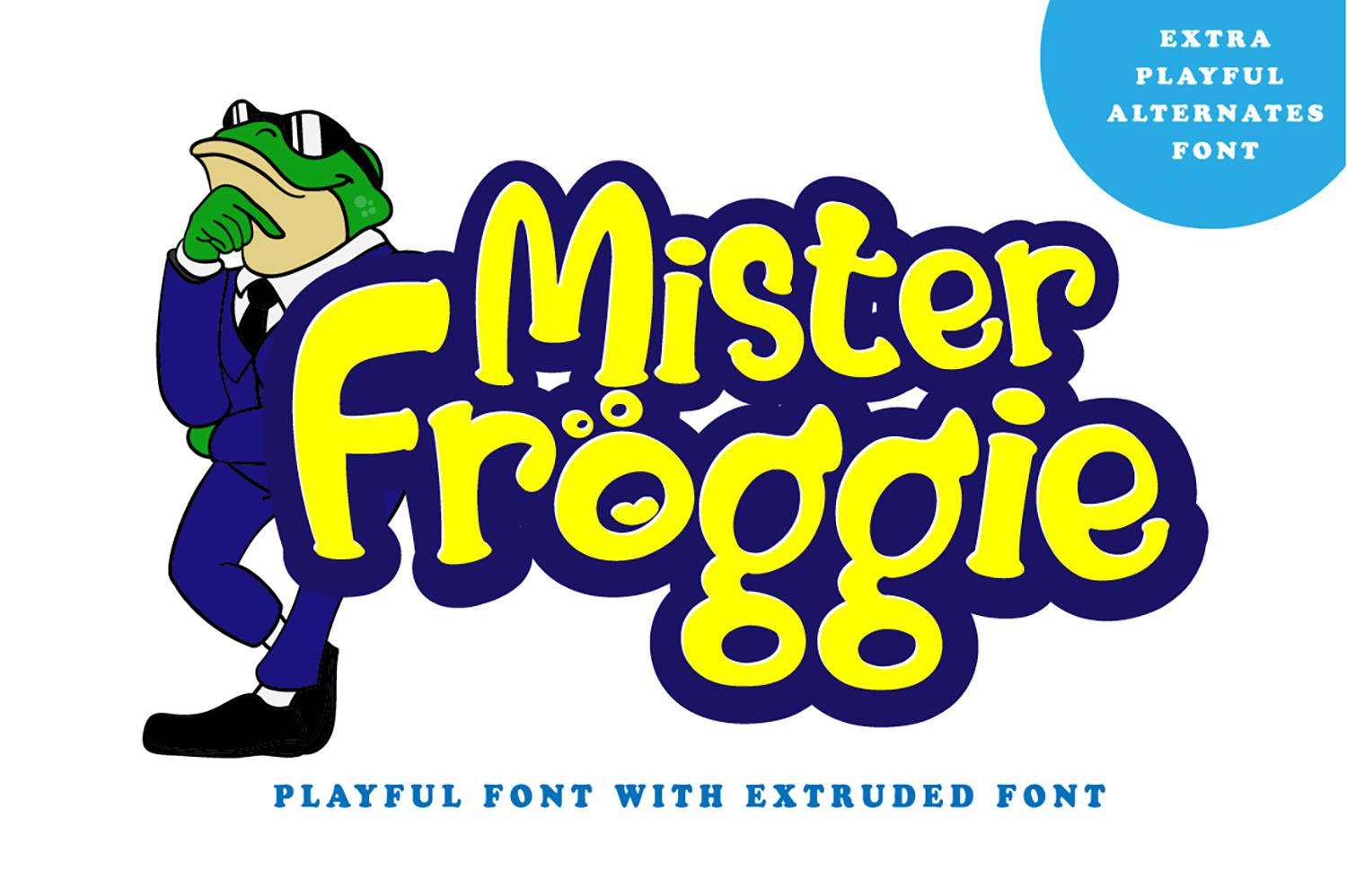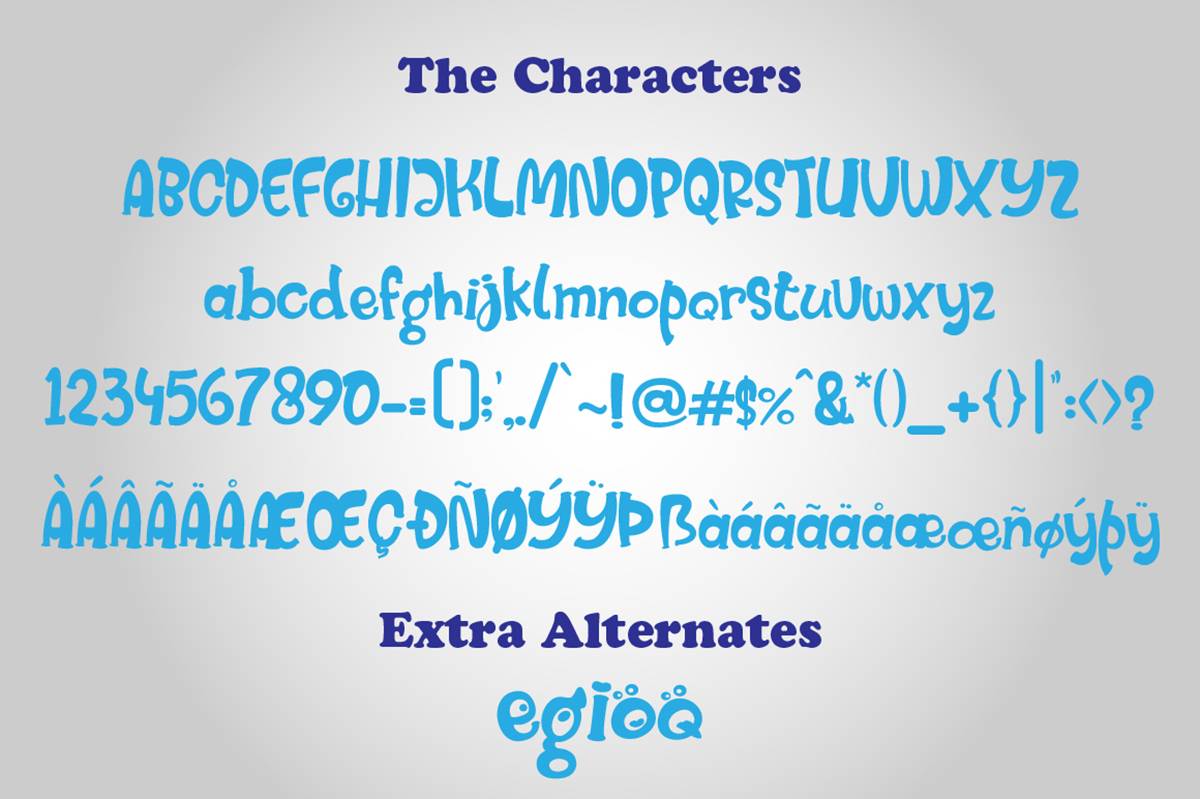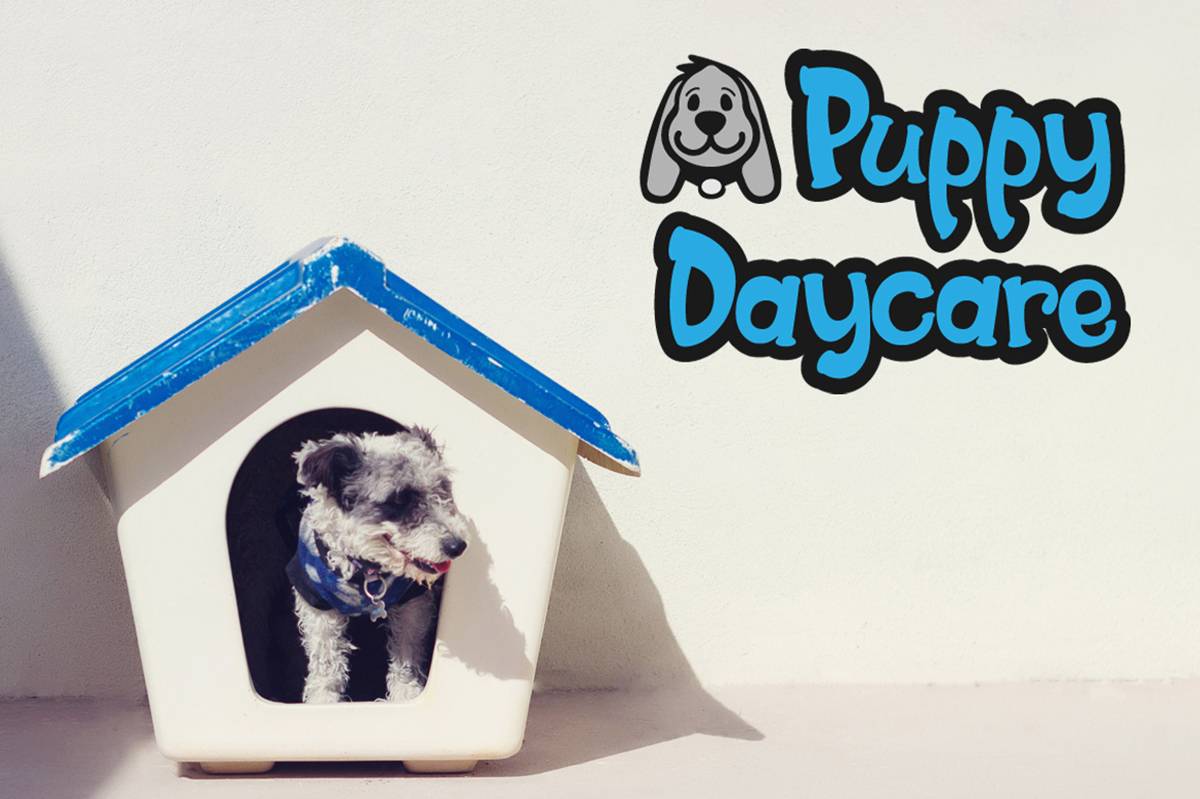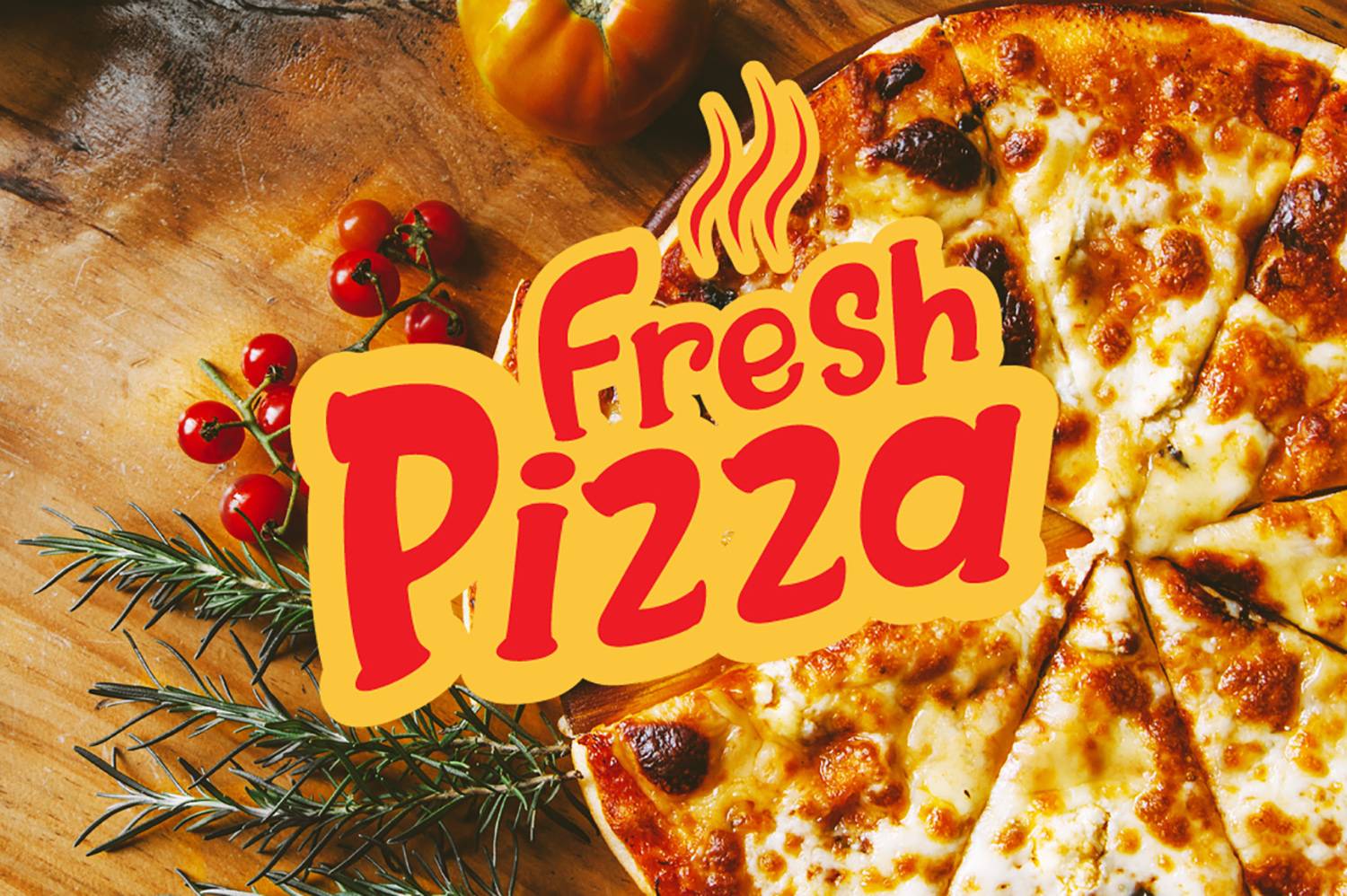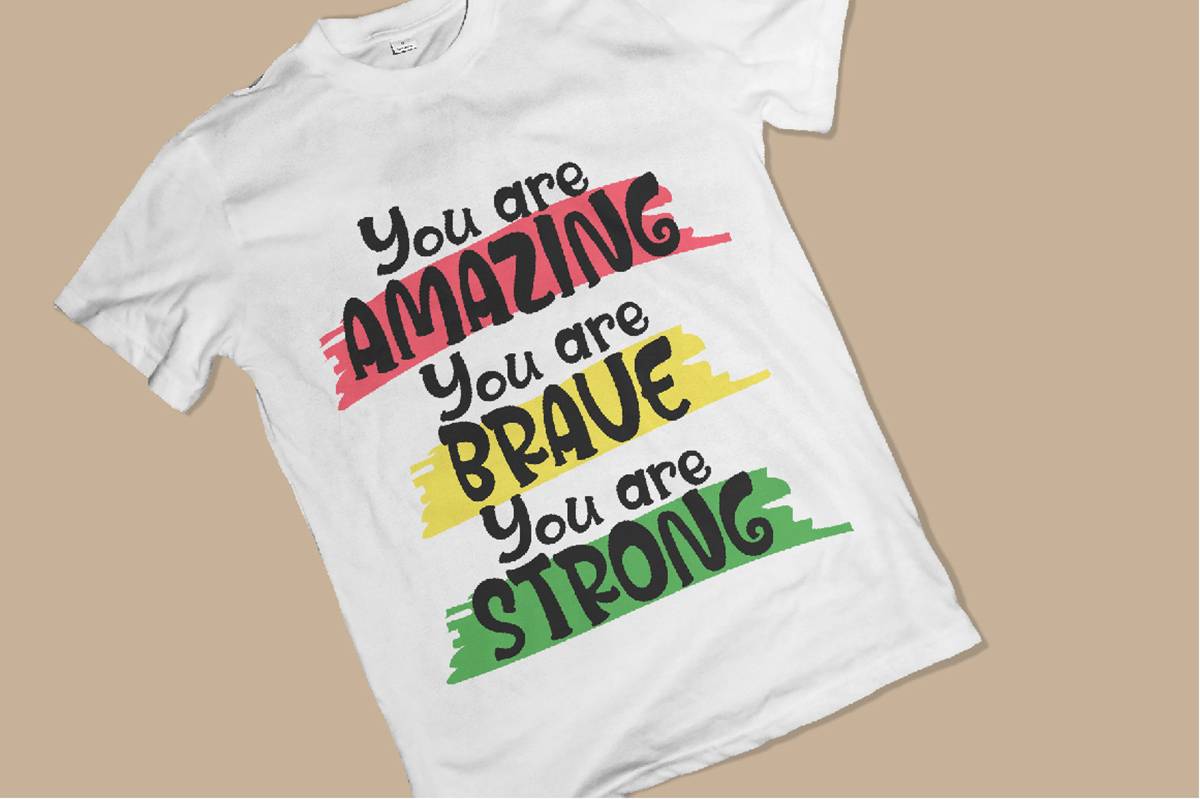
Mister Froggie is a bold, playful handwritten font characterized by its thick, rounded strokes and casual, bubbly letterforms. Its quirky, friendly style makes it ideal for fun and informal designs, such as children’s books, playful branding, or creative posters, where a lively and approachable feel is desired. This font works best in large sizes for headlines or logos, adding a charming personality that instantly grabs attention.
Mister Froggie Font
About Mister Froggie Font